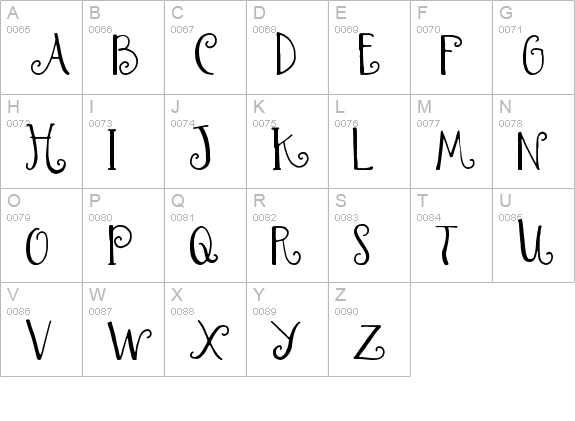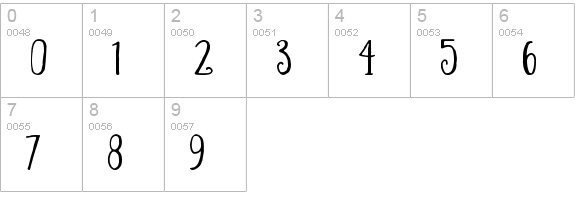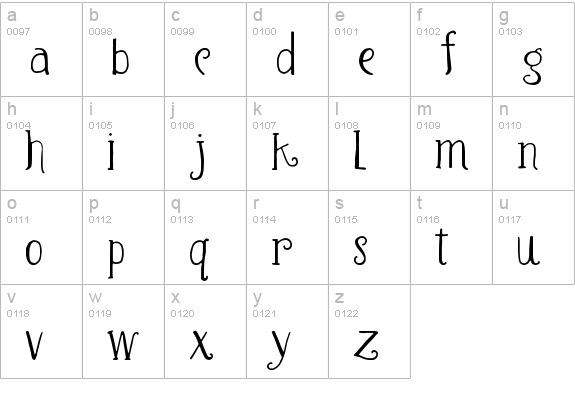
Waterfalls Font Details
Introducing the exquisite Waterfalls font - a stunning display typeface that effortlessly captures the beauty and fluidity of cascading waterfalls. With its flowing lines and elegant curves, this font embodies a sense of movement and tranquility, making it the perfect choice for projects seeking a touch of natural beauty and sophistication. Waterfalls font is not only visually captivating but also versatile, making it ideal for a wide range of design projects including branding, packaging, invitations, posters, and more. Its unique style adds a touch of elegance and charm to any creative piece, ensuring that your work stands out from the crowd. Best of all, Waterfalls font is available for free download at FontsMarket.com, allowing you to easily access this stunning typeface and incorporate it into your projects with ease. Don't miss out on the opportunity to enhance your designs with the enchanting beauty of Waterfalls font - download it today and let your creativity flow like a waterfall.